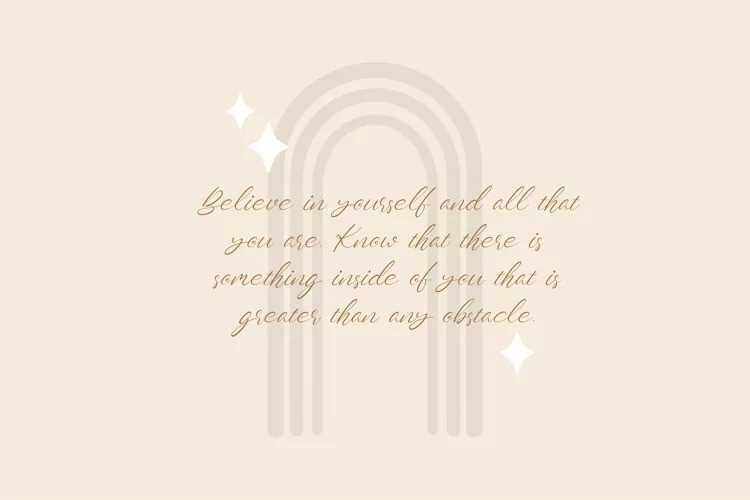
Oliver Blush Calligraphy Font
Oliver Blush is an incredibly relaxed, delicate and timeless handwritten font. It looks stunning on wedding invitations, thank you cards, quotes, greeting cards, logos, business cards and every other design which needs a handwritten touch.